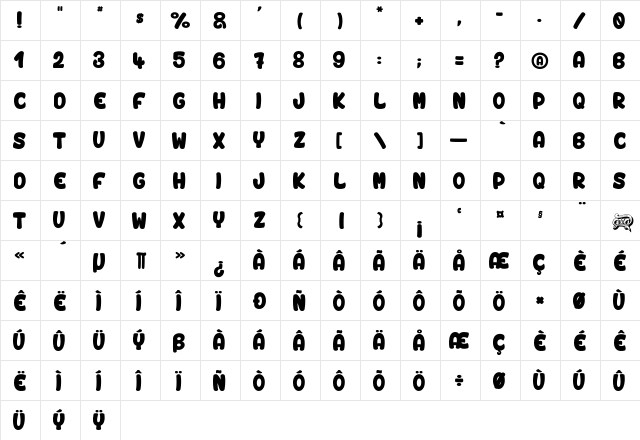
Vinegar Stroke Regular
Design Context for Vinegar Stroke Typeface
Vinegar Stroke is a composed and adaptable typeface that performs quietly and consistently across a wide range of design contexts.